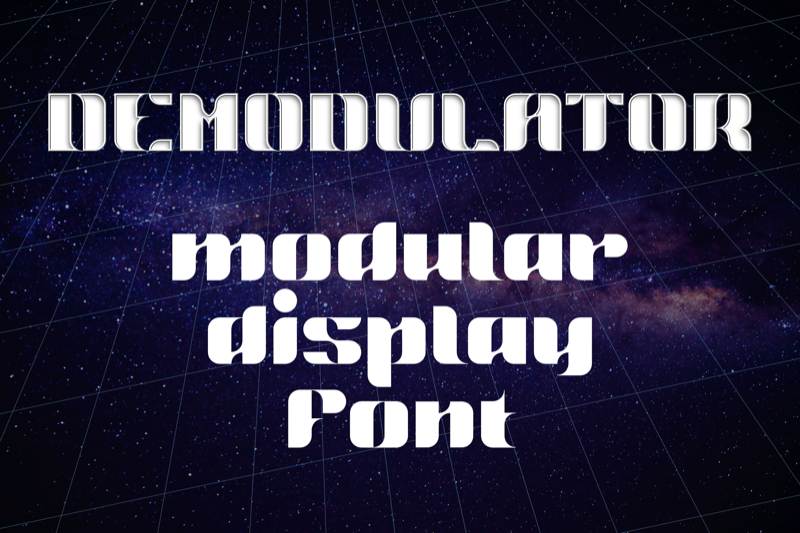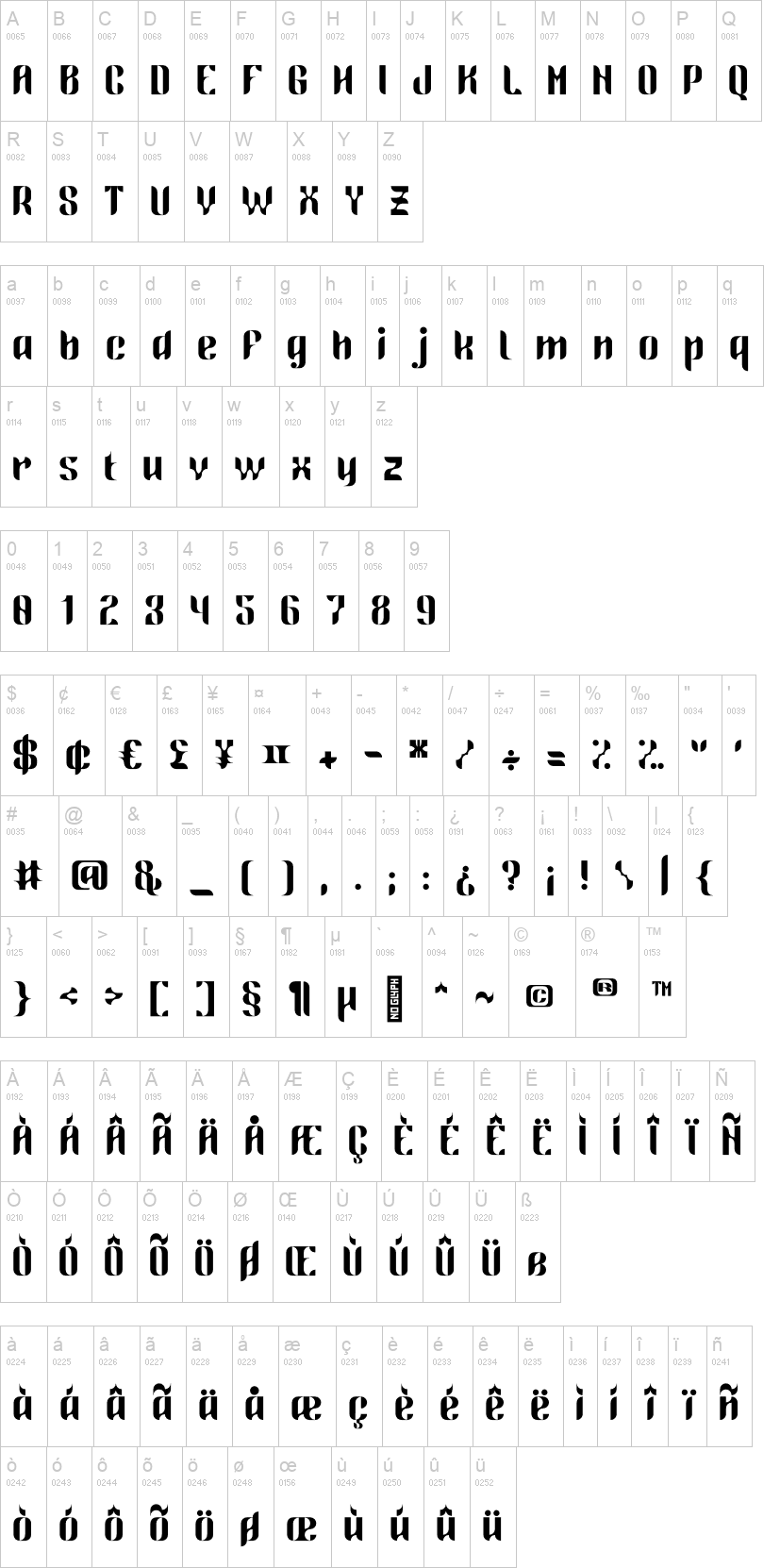
Demodulator-Bold.otfNote of the authorDemodulator is a modular variable font.
It comes in two weights, regular and bold, as well as everything in between when you use its OpenType features.